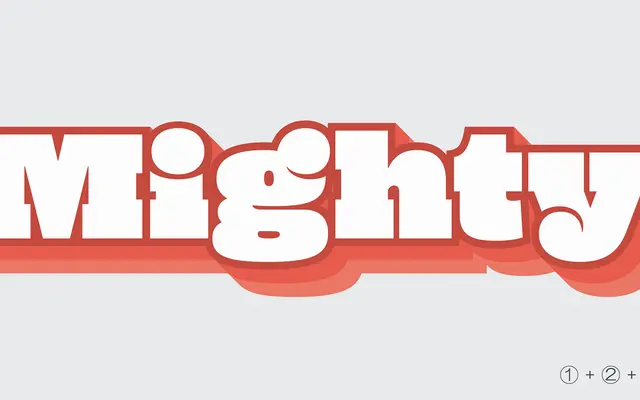
Mighty Slab
A ultra-heavy display slab from Dharma Type built around four layerable styles for colour stacking effects in headlines and logos.
Four styles, Mighty Slab One, Shadow, Inline and Texture, stack on top of each other to produce layered colour type effects without specialist software. The super-high x-height and blocky letterforms are tuned for maximum weight at large sizes, covering Adobe Latin 2 and most of Latin 3. Works best in short-burst title settings, poster work and brand wordmarks where sheer mass is the intent.
A heavy, blocky slab-serif designed explicitly for display use at large sizes; the ultra-heavy weight and layered colour font system place it firmly in the display slab category.